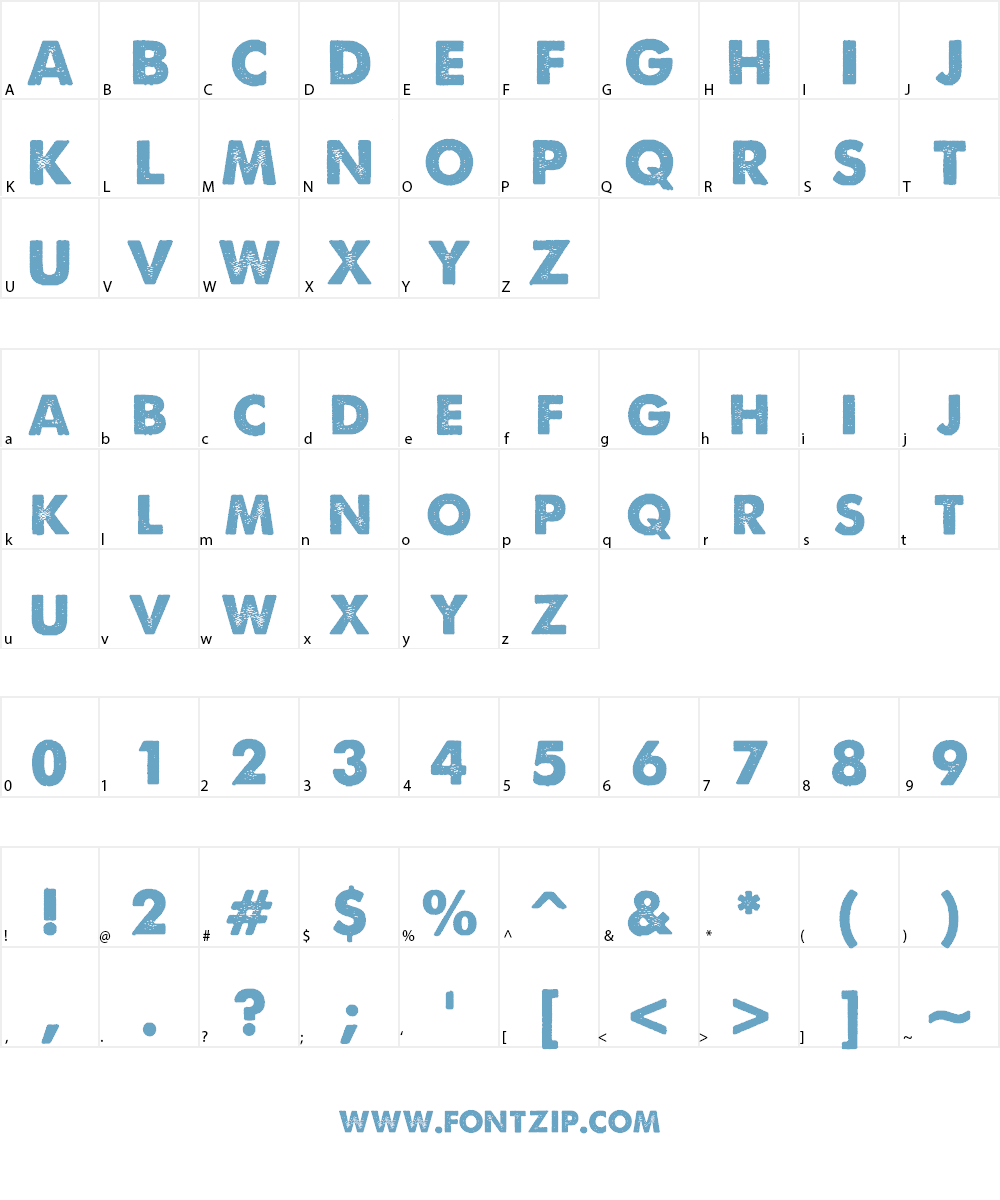
This one doesn't have a complicated origin story. I love the warm stressing on my Dirty Headline font, and I wanted to create a brother-font for it; similarly stressed but with an alternate style, for some mixed graphics. For the base forms, I went to one of my favorite fonts from the 1920s, and dipped it in the same acid-pit (or rather, a very similar one) as DH. The main differences are less stressing on the outlines, a bit more texture and "resolution," and less vertical precision; this one hangs looser on the baseline. Other than that, it's your basic full-keyboard small-caps set with one or two of the usual extras (Euro, Cent, Pound Sterling, etc).